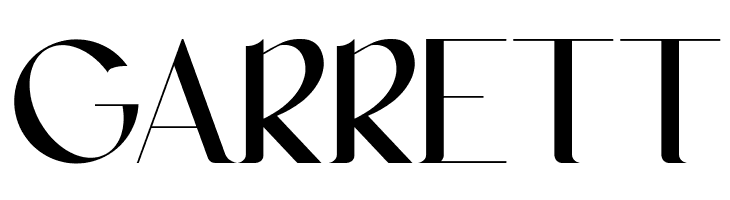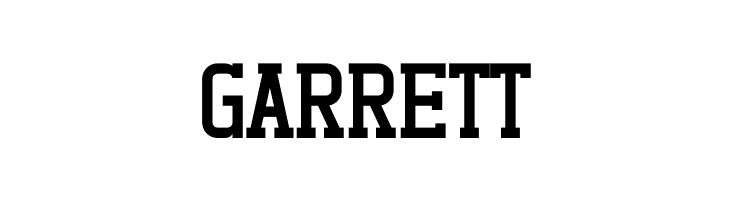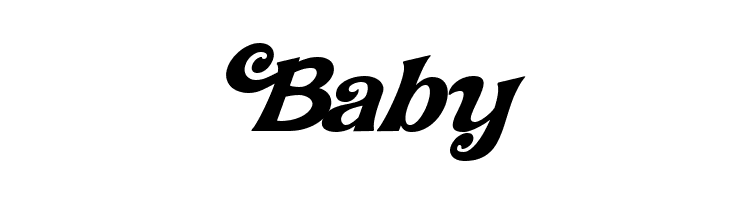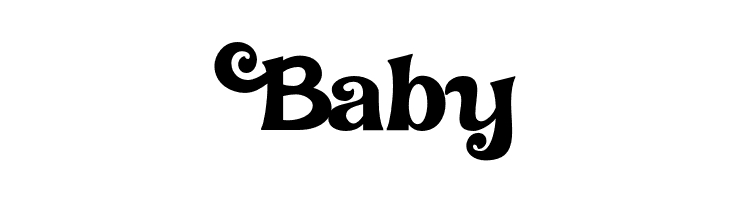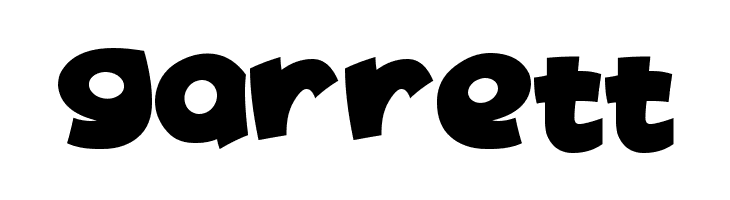
A decorative font with characters inside turtle silhouettes, offering a playful and thematic design.
A whimsical and decorative font with playful curls and bold characters.
A bold, italic font with decorative flourishes and high contrast strokes.
An elegant script font with flowing, intricate letterforms and artistic swashes.
A modern, high-contrast font with elegant serifs and artistic special characters.
A classic serif font with elegant strokes and medium contrast.
Bold, geometric font with a 3D shadow effect.
A decorative font with playful patterns and motifs, ideal for eye-catching designs.
An elegant, calligraphic font with artistic curves and sharp angles.
A modern, geometric font with clean, rounded edges and consistent stroke width.
A modern, geometric font with sleek lines and rounded edges.
A bold, geometric font with a futuristic and modern design.
A dynamic cursive script font with elegant, fluid strokes.
A bold, slab serif font with strong geometric shapes and a robust presence.
A bold, playful font with alien-inspired design and quirky details.
A whimsical font with heart-shaped elements, perfect for romantic designs.
A graceful script font with fluid, elegant strokes and a handwritten style.
A modern sans-serif font with clean lines and excellent readability.
A playful, rounded font with smooth curves and a friendly vibe.
A playful, handwritten script font with a whimsical and friendly style.
A playful, hand-drawn script font with whimsical embellishments.
A playful, rounded font with smooth curves and a friendly appearance.
A bold, geometric font with strong, block-like characters and a modern aesthetic.
A playful, human-figure integrated font with a bold, dotted texture.
A bold, flowing script font with a playful and dynamic style.
A bold, dynamic brush script with expressive strokes and a hand-painted look.
A graceful script font with fluid, cursive strokes and elegant curves.
A playful, casual handwritten font with fluid, connected strokes.
An elegant script font with flowing, ornate characters and decorative embellishments.
A bold, playful font with rounded, thick strokes and a hand-drawn feel.